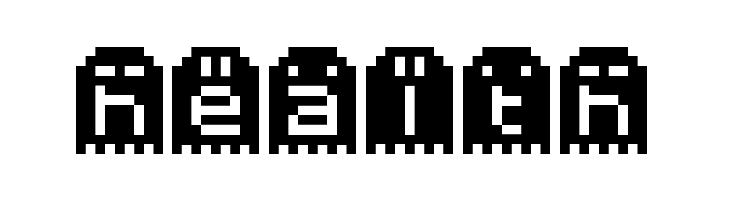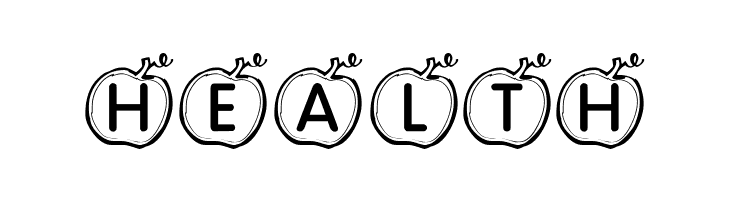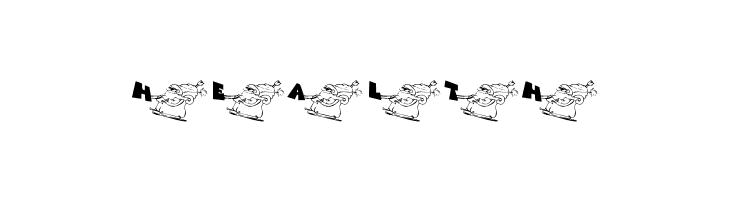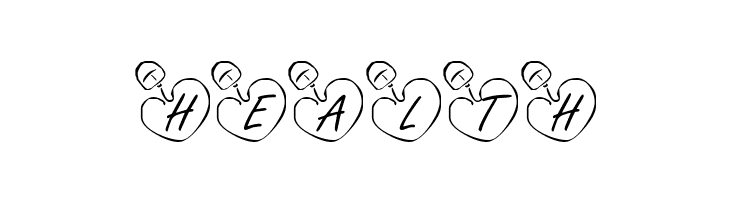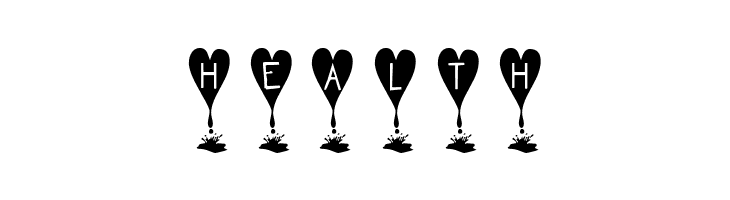
A decorative font with bold letters and intricate bird motifs.
A playful font with each letter inside a heart shape, perfect for romantic themes.
A playful font with letters inside apple shapes, perfect for whimsical projects.
A decorative font with sleigh motifs, perfect for festive designs.
A bold, decorative font with an eagle motif in each character's frame.
A decorative font with letters inside heart shapes, perfect for romantic themes.
A decorative font with bold, uppercase letters inside candle shapes.
A bold, heart-shaped decorative font with a dripping effect.
A playful, decorative font with letters inside cartoon potato characters.